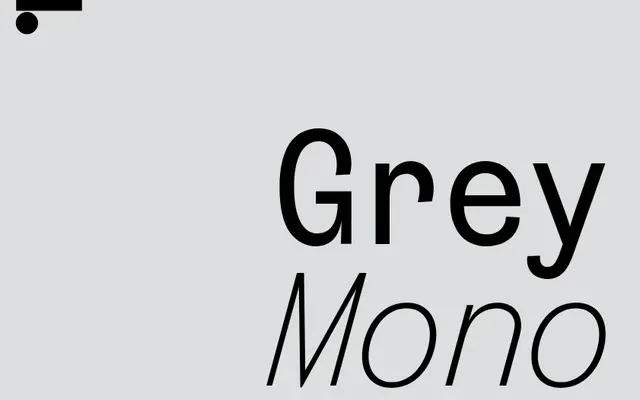
LL Grey Mono
Lineto · Aurèle Sack · 2018
A monospaced offshoot of LL Grey, carrying the rude stroke endings and idiosyncratic proportions of 19th-century French grotesques into a fixed-width format.
Derived from Aurèle Sack's LL Grey, itself born as a diploma project at ECAL in 2004, this mono cut retains the cabaret-like stroke endings that define the French grotesque genre. The fixed-width format makes it well suited to coding environments and screen-based text work where personality is still wanted. It sits within a colour-named trilogy alongside LL Purple and LL Brown.
A monospaced variant of LL Grey, itself a French grotesque sans-serif. The mono designation and specimen context confirm a fixed-width cut derived from grotesque formal conventions.